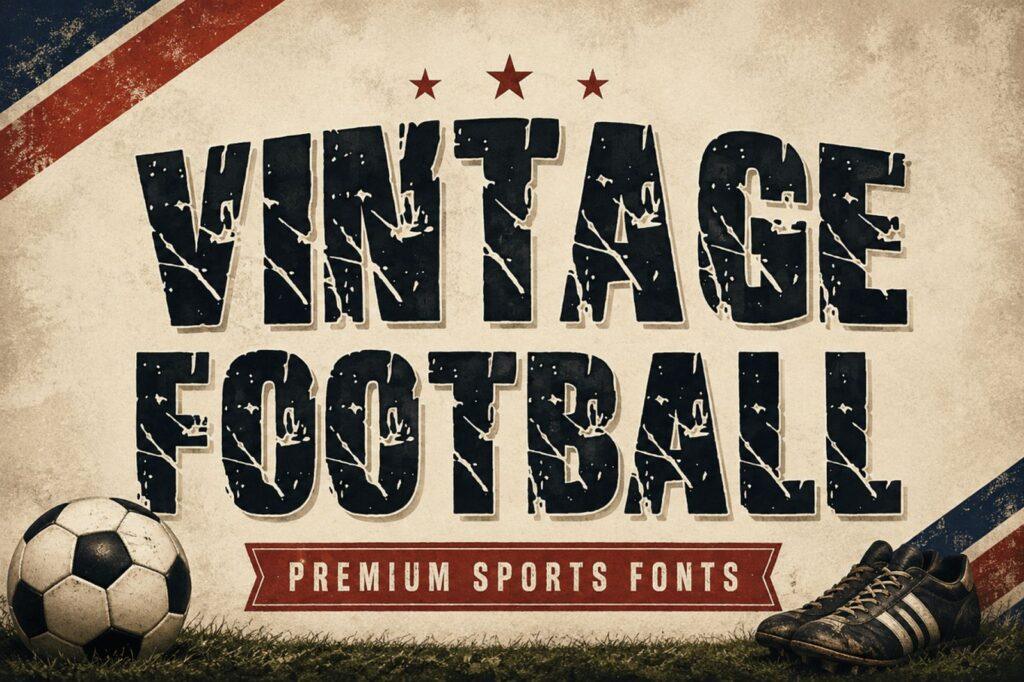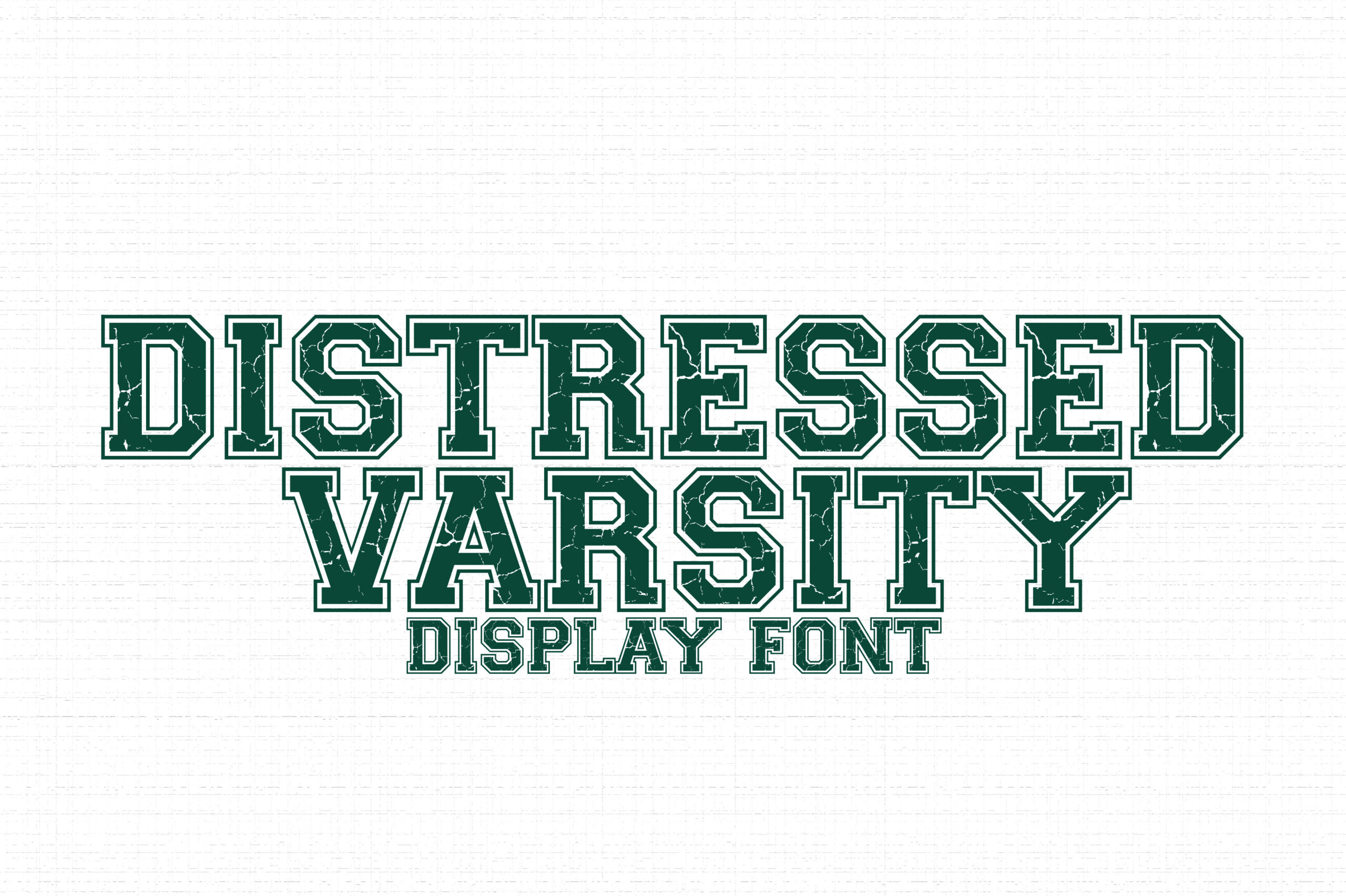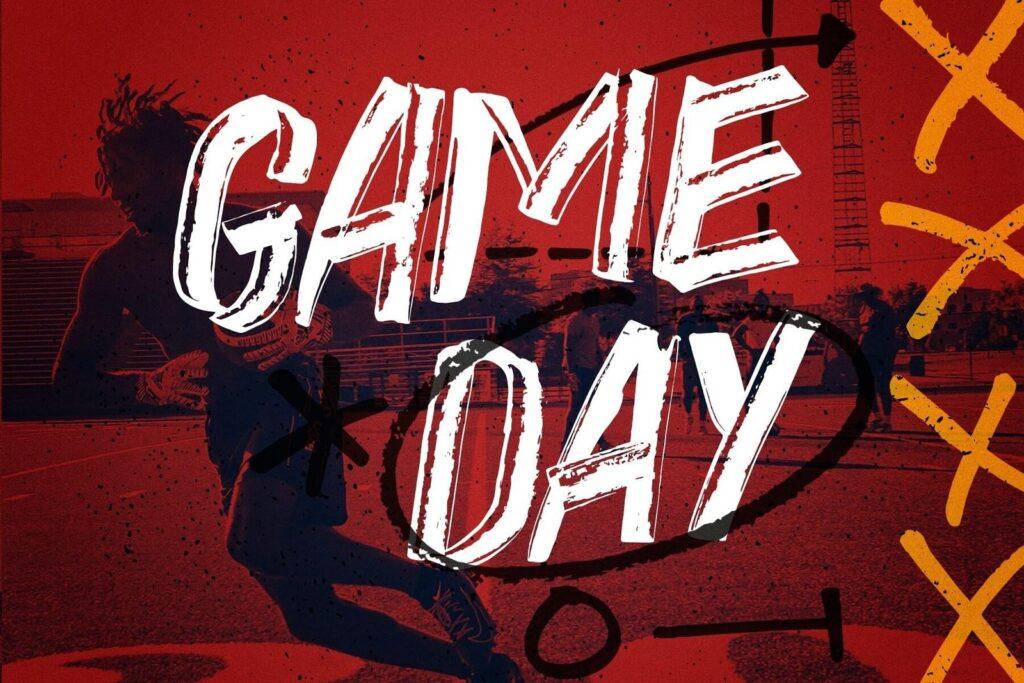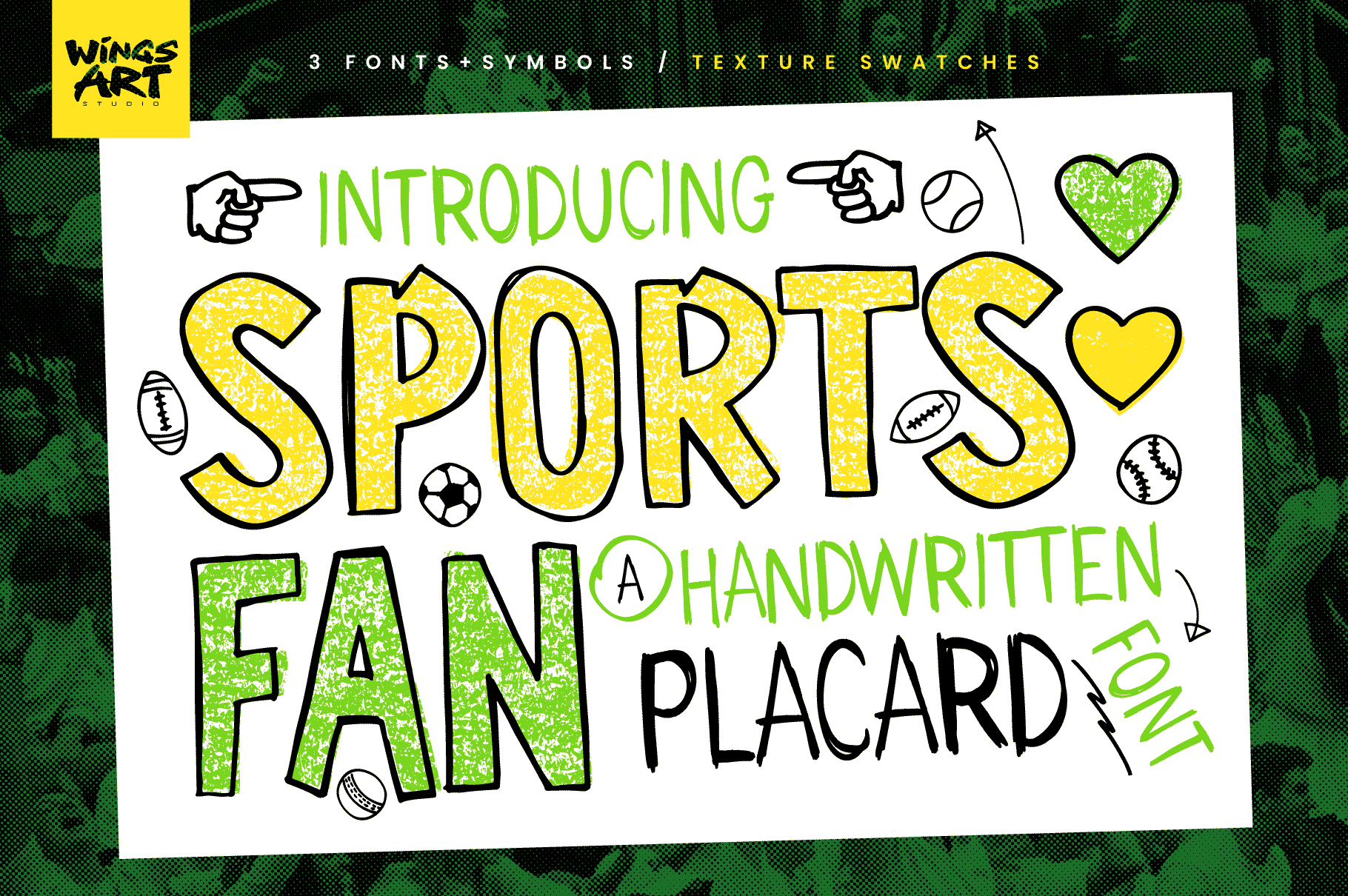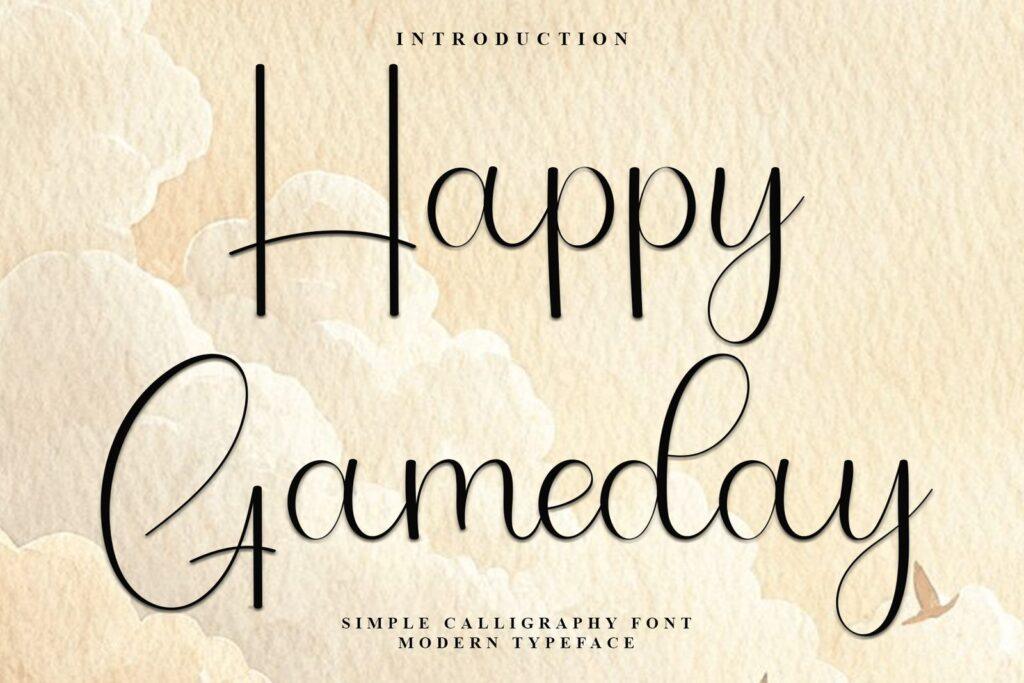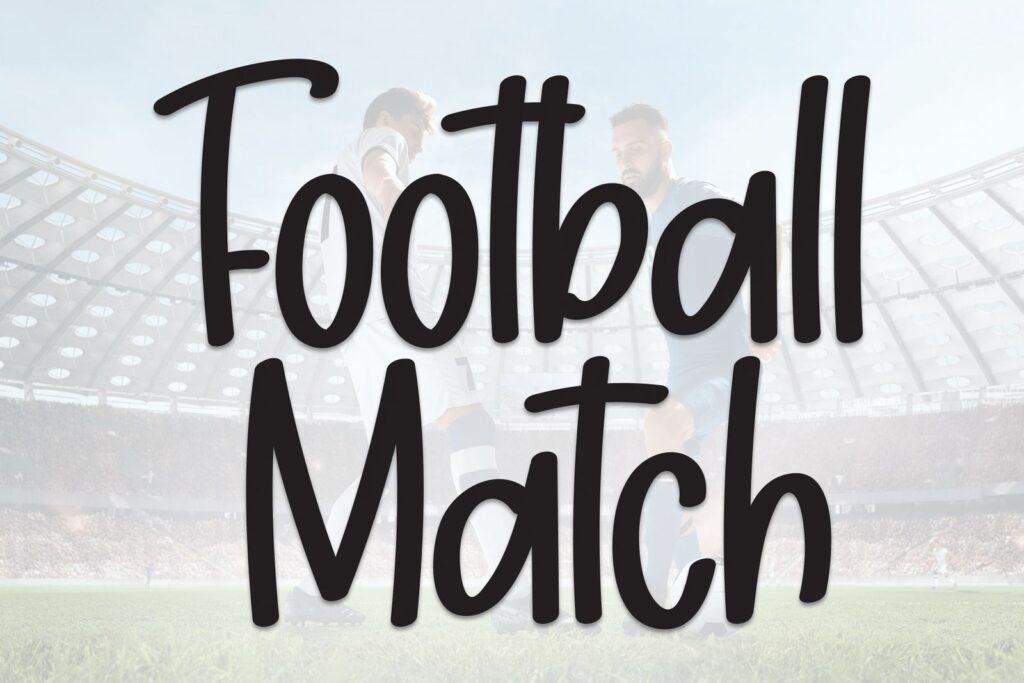
20 Football Fonts for Game Day Shirts, Mascot Logos and Cricut Projects: Varsity, Brush and Retro Styles
A football font has a few jobs that rarely overlap: a heavy wordmark for a helmet-side logo, lettering that reads from the sidelines on a shirt, and a homemade sign for Friday night. A good football font handles at least one of them without fuss, and this list sorts twenty of them by what each does best.
They are grouped into four sets: varsity and collegiate faces, casual game-day fonts for crafters, heavier mascot and team logo fonts, and football-themed letters with laces and leather built in. Fonts that mainly matter for their numbers live in the Jersey Fonts collection linked below, so you will not find that list repeated here.
- Varsity & Collegiate Football Fonts
- Game Day Casual & Cricut Football Fonts
- Mascot & Team Logo Football Fonts
- Football-Themed Letters & Alphabets
Varsity & Collegiate Football Fonts
Varsity lettering is the visual language of American football: heavy slab or block capitals, often with an outline or a worn texture. These six lean into that look, from a sharp-edged stadium headline face to a green slab that already looks washed a few times. They suit hoodies, banners, senior night posters and anything that should feel like a school.
1. Gridiron Varsity Font
by Wow Magic
Best For: football club logos, championship banners, game-day posters, college merch
The preview sets tall, upright varsity capitals in light tones over a dark stadium field with yard lines running under the words, and a row of small labels along the bottom: varsity style, sports branding, team logos, college merch. Corners are crisp and the frame is squared, which is exactly what the listing means by sharp edges on a solid structure.
Use it large. A championship banner or a game-day poster is where a heavy, sharp-cornered face earns its place, and plain sans text underneath keeps the attention on the headline. The seller also points to football club logos and college merchandise.
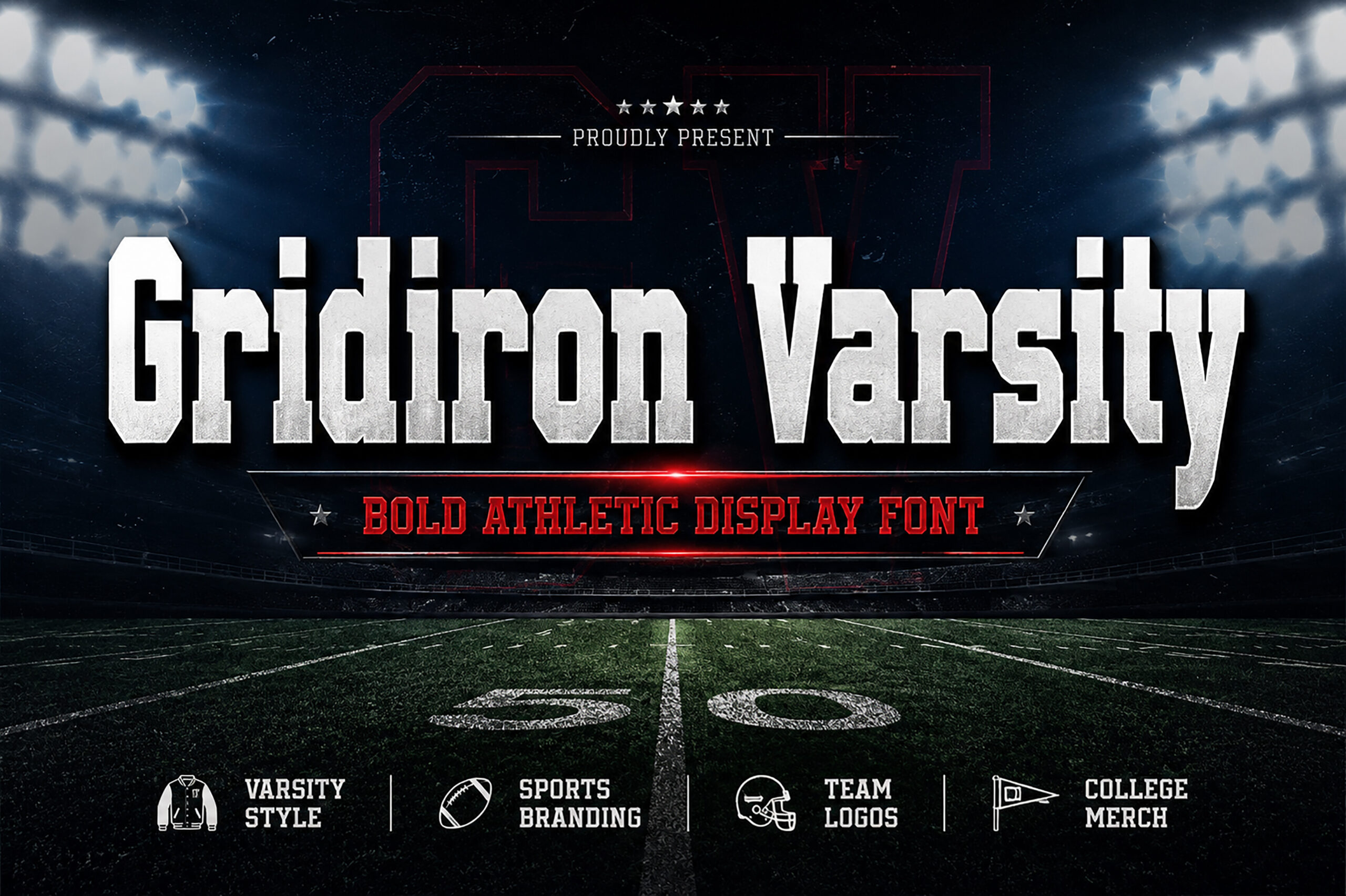
2. Football Champion Font
by riki.studio
Best For: varsity jackets, sportswear tees, quote posters
On a navy panel the preview stacks FOOTBALL in gold over CHAMPION in white, both with a slightly worn edge, and the line underneath calls it a varsity style font. The description makes a point of the contrast between its uppercase and lowercase forms, so this is not a single-case face; type a lowercase word before you decide.
That contrast suits a two-line title, capitals on the first word and mixed case on the second. The listing names sportswear, varsity jackets, quotes, logos, packaging, t-shirts and mugs as uses.
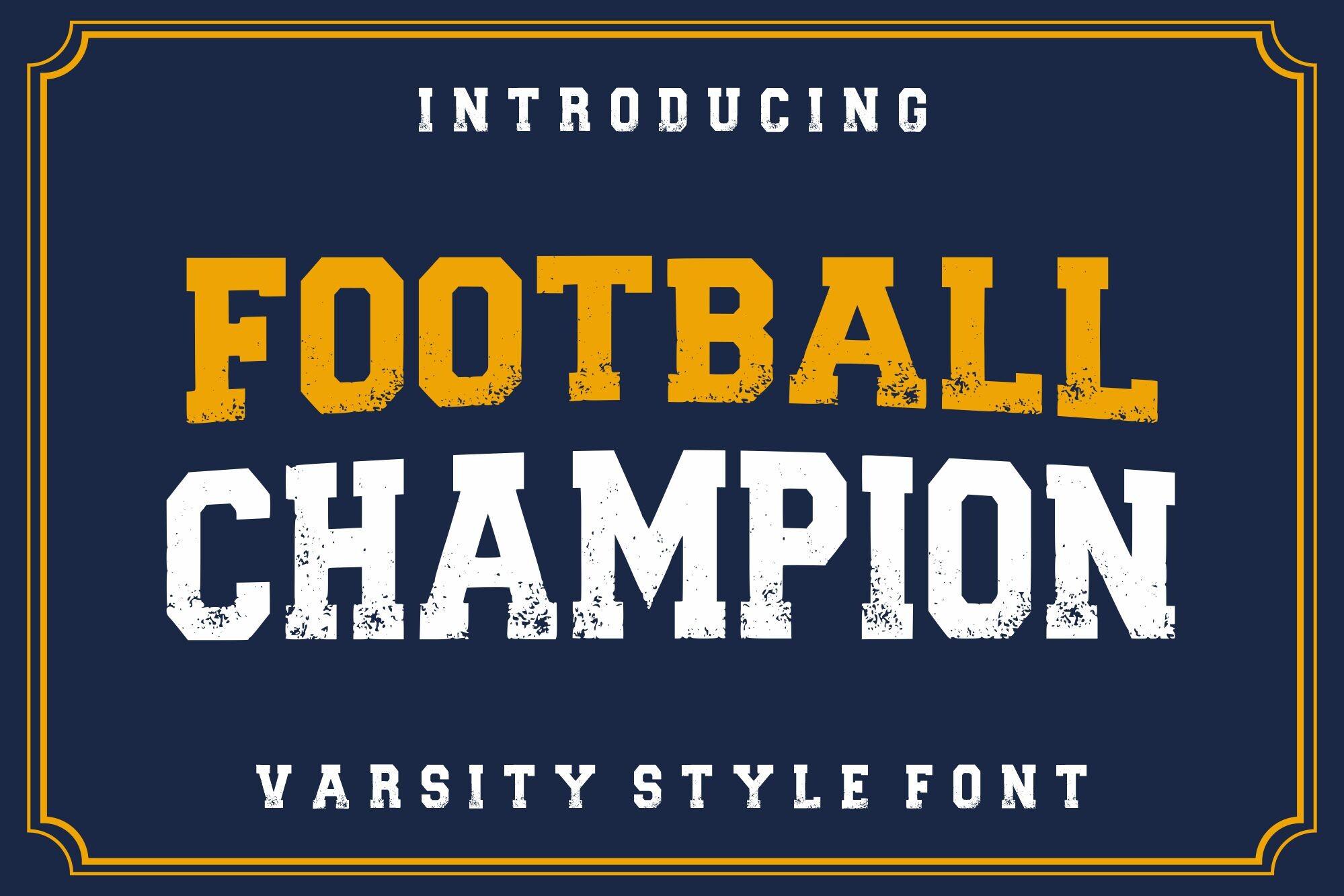
3. Winter Football Font
by BlackCraft
Best For: game-day apparel, tailgating banners, workout tees
Dark brown slab serif capitals on a pale blue background, labeled in the preview as a varsity slab serif font. The description adds snow-capped details and football stitch accents to a strong uppercase alphabet, and calls it an American football font for jerseys, tees, team logos and vintage athletic designs.
It is uppercase only, so plan every word in caps. The snow details make it a natural pick for late-season and cold-weather game designs, and the seller lists tailgating banners and fan merch alongside game-day apparel.
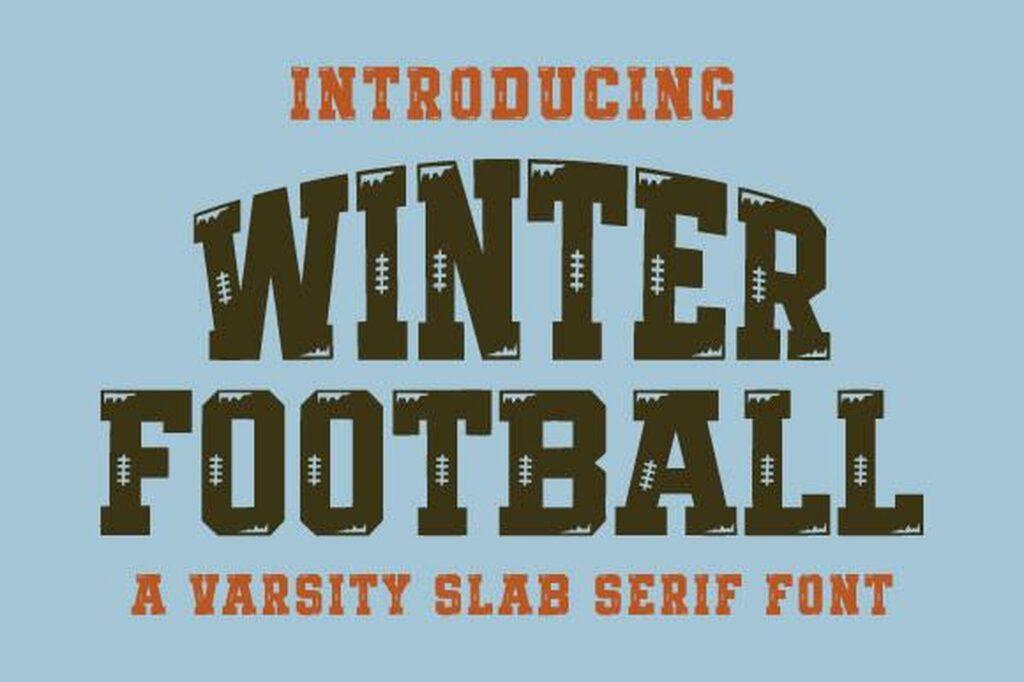
4. Football Varsity Font
by Wow Magic
Best For: high school team apparel, letterman-style graphics, league posters
Bold, blocky letterman capitals in white on a mint-green preview, each filled with a honeycomb pattern. The listing says the mesh texture is meant to mimic the fabric of sports jerseys, and that it builds the design around the letterman look.
The pattern is part of the letters, so give them room: set them big on a flat color and let the texture do the work. The description says the textured interior takes drop shadows and 3D effects well, which helps on posters for a local league.
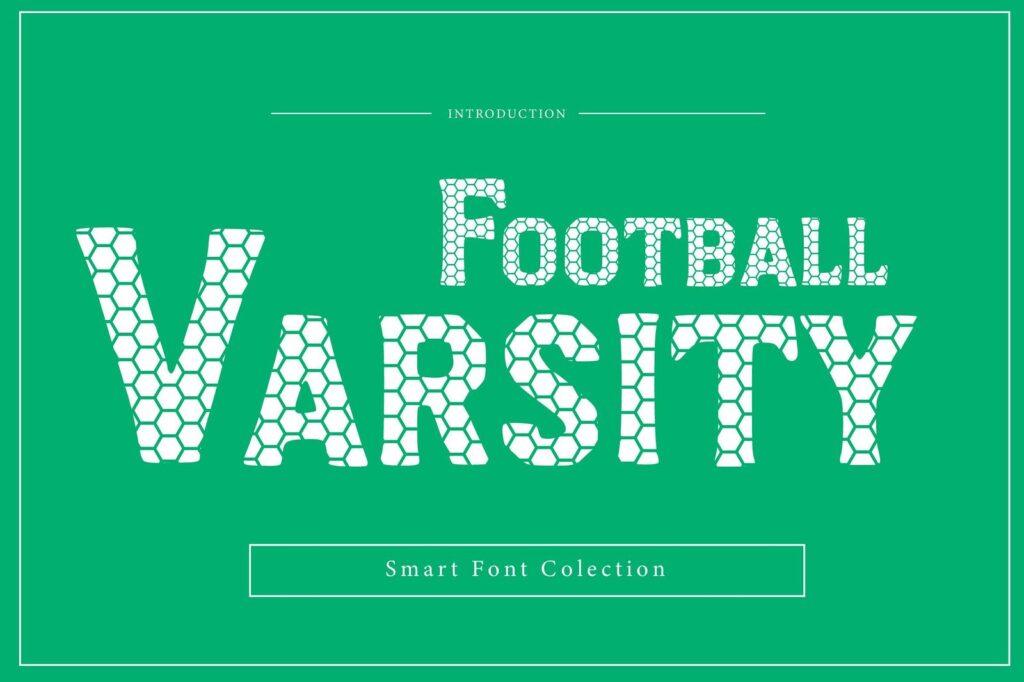
5. Vintage Football Font
by anamalmusyaffaCreative
Best For: retro game-day tees, tailgate merchandise, throwback posters
Condensed, blocky capitals with a cracked, crackle texture across the fill, set on a retro banner with stars and a red ribbon reading premium sports fonts. The listing describes retro athletic gear: vintage jerseys, varsity jackets and game-day banners.
Pick the Job First
Choose the font that matches the thing you are making, then test it with your real words. Print a sample at actual size, pin it up and step back a few meters. If the name still reads from there, the font will hold up on the shirt, the banner or the sign.